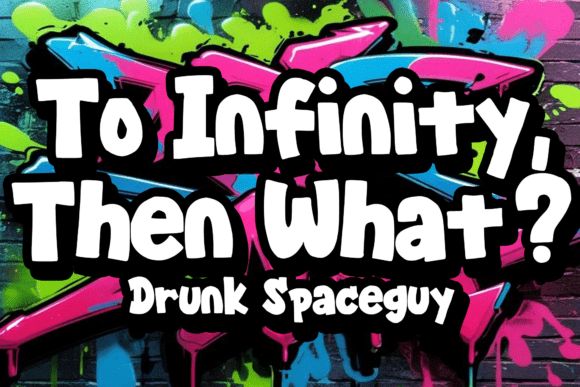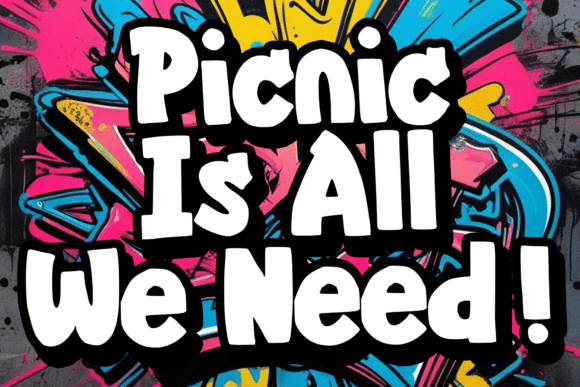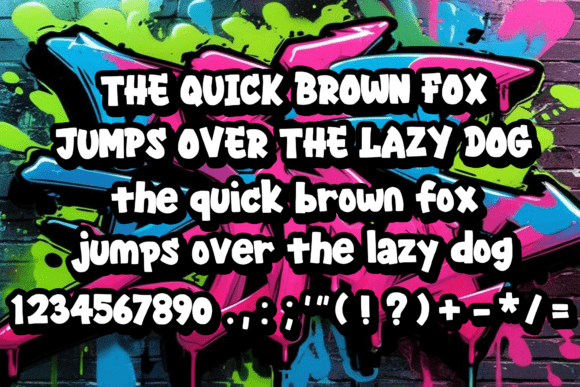
Introduction to Graffiti Smile Font
You know that moment when you’re brainstorming a new design project and you just can’t seem to capture the right vibe? The colors, the style, the overall feel just isn’t quite right? That’s when I turn to my trusty design resource: the Graffiti Smile Font. This vivacious font is a game-changer for any creative project, infusing your designs with a bold, playful energy that’s guaranteed to grab attention.
With its high-quality, expressive nature, Graffiti Smile Font is the perfect addition to any design. Whether you’re working on a fun and quirky t-shirt design, a dynamic poster, or even a unique greeting card, this font is sure to elevate your project to the next level. And the best part? It’s available for free download, so you can get creative without breaking the bank.
So why settle for a generic, run-of-the-mill font when you can unleash the exuberant world of Graffiti Smile Font? This design resource is a must-have for any designer looking to add some serious style and personality to their work. With a transparent background and a range of creative possibilities, the Graffiti Smile Font is the perfect way to take your designs to new heights.
Key Features of Graffiti Smile Font
- High-quality, hand-drawn design ideal for creative projects, such as posters, flyers, and social media graphics.
- Comes with a transparent background, allowing for easy integration into various design layouts.
- Designed with a unique, playful style that is sure to add a touch of personality to any design project.
- Features a bold, eye-catching font that is perfect for grabbing attention and conveying a sense of fun and creativity.
Honest Review: Graffiti Smile Font
I recently stumbled upon the Graffiti Smile Font and I must say it’s been a great addition to my design resource library. The high quality of this font has been a perfect fit for my creative project.
- What works well: ✨ The font’s playful and vibrant style makes it ideal for projects that need a fun and youthful feel. The transparent background allows for seamless integration with various design elements.
However, I did encounter a few limitations with this font.
- ⚠️ Limited font variations: The font only comes in a few styles, which might limit its versatility for more complex projects.
- ⚠️ Not suitable for formal designs: The playful nature of the font makes it unsuitable for formal or professional designs.
Overall, I’m impressed with the Graffiti Smile Font and would recommend it for designers working on fun and creative projects. Its high quality and free download make it a valuable design resource.
To use Graffiti Smile Font in PowerPoint or Word, follow these steps: select the text you want to change, click on the font dropdown menu, and choose Graffiti Smile Font. You can then adjust the font size, color, and style to fit your design needs. With its transparent background, Graffiti Smile Font is perfect for adding a touch of whimsy to your presentations and documents.
Some tips for getting the most out of Graffiti Smile Font include using it in bold or italic styles to add emphasis, and pairing it with other fonts to create a unique visual effect. Common use cases for Graffiti Smile Font include social media graphics, posters, flyers, presentations, and documents. With its versatility and high quality, Graffiti Smile Font is a valuable addition to any designer’s toolkit.